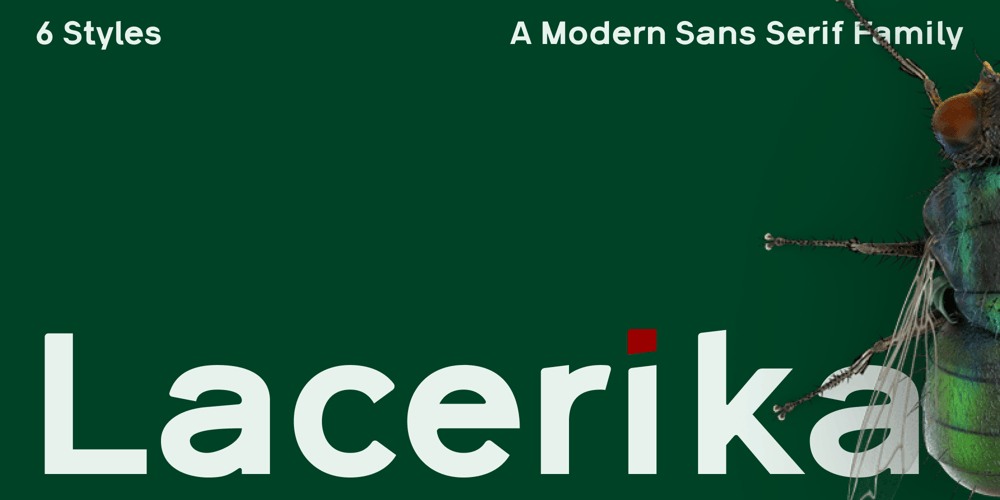
Lacerika Font Family was designed by Irsad Waroid Musyaffa and published by Iwm Design. Lacerika contains 6 styles and family package options. Introducing Lacerika font family, a versatile and sleek sans serif font designed to elevate your projects, whether you’re creating a stunning website, captivating app, eye-catching brochure, or unforgettable branding materials. Unlock the potential of your creativity with Lacerika today!